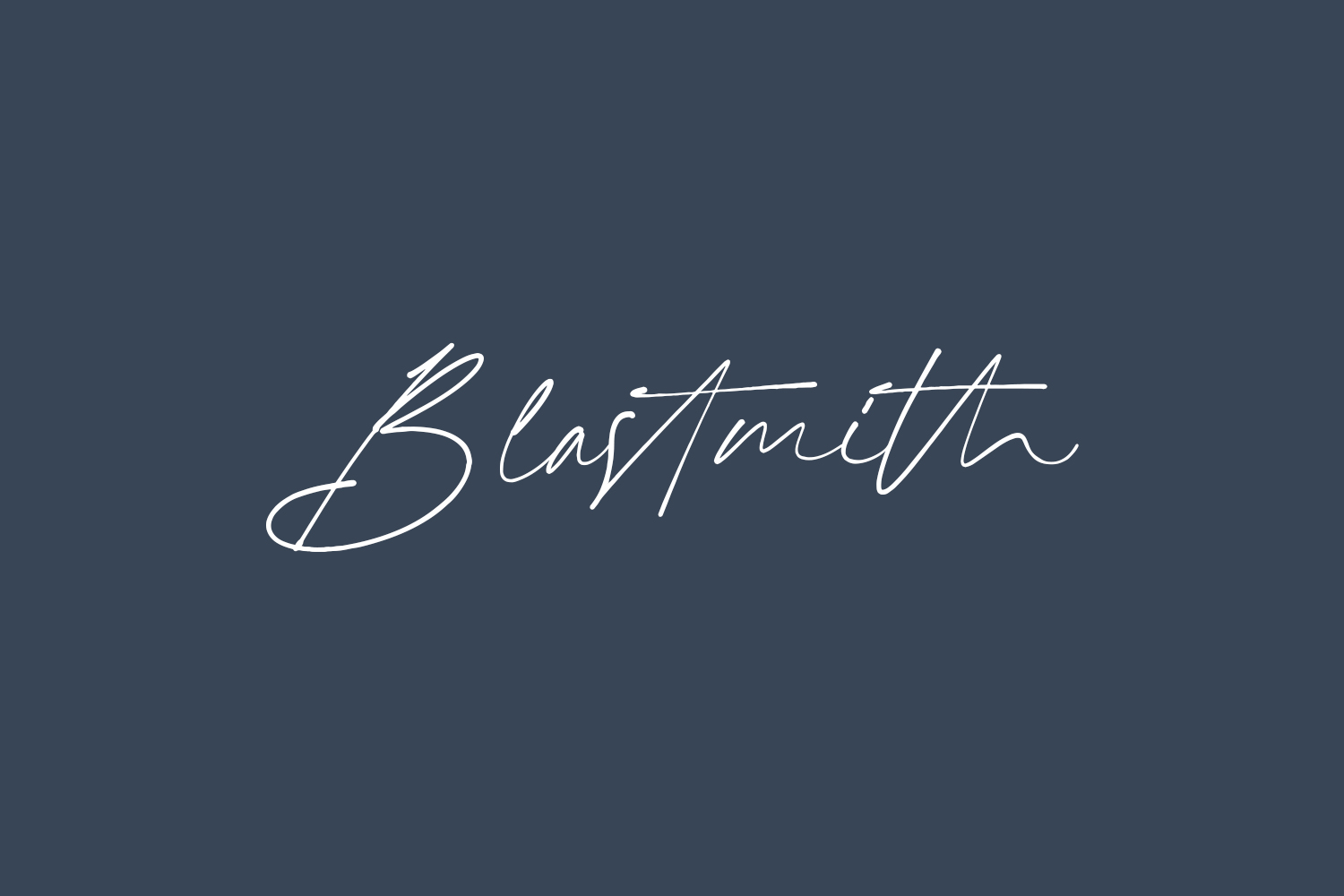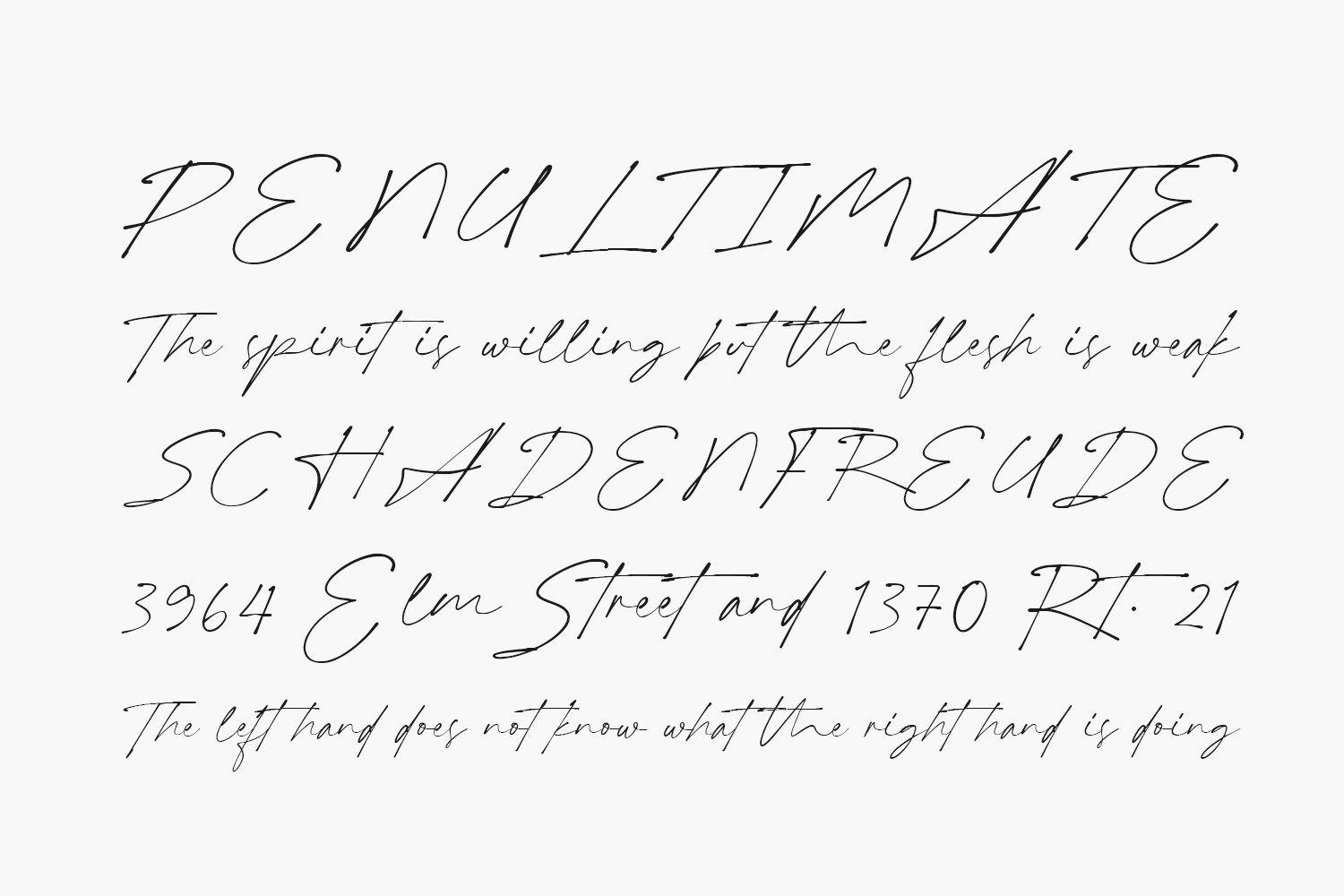
Blastmith Free Font is a modern and stylish script font with signature-like characteristics. The presence of several ligatures and swash characters adds a natural impression to this font. It is suitable for invitation design, branding, quotes, business cards or social media posts. Blastmith Free Font is free for personal use only. Please purchase the full version for commercial use.
Designed by Prioritype Co